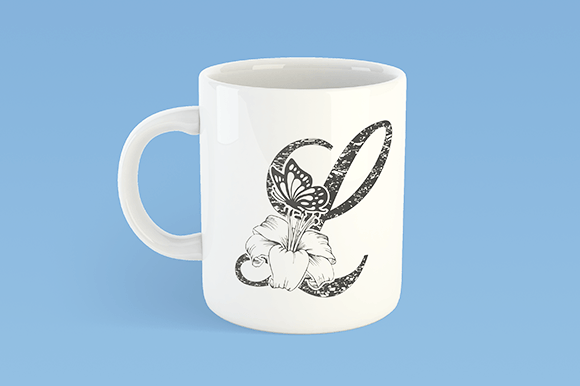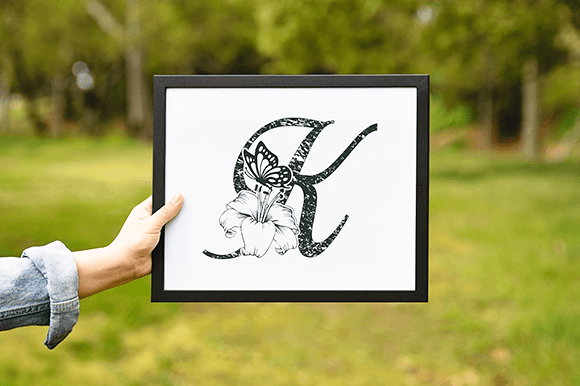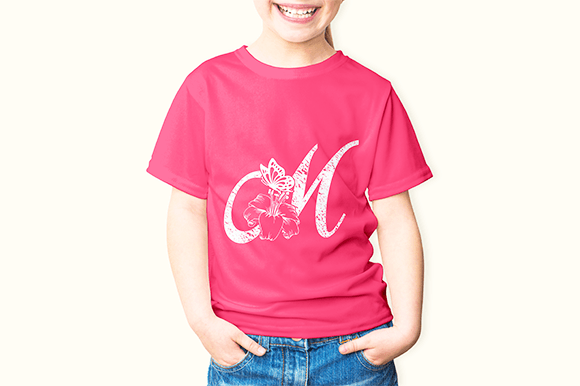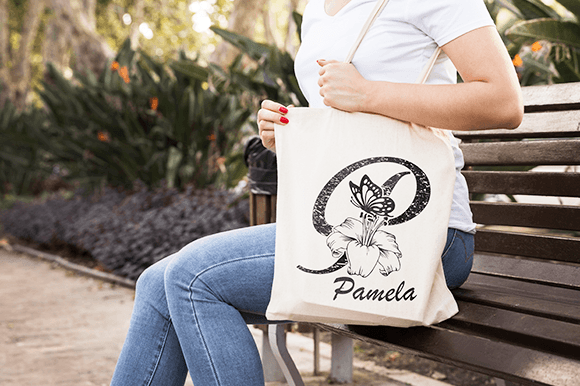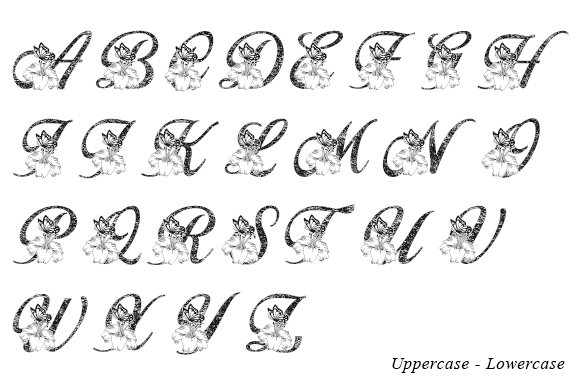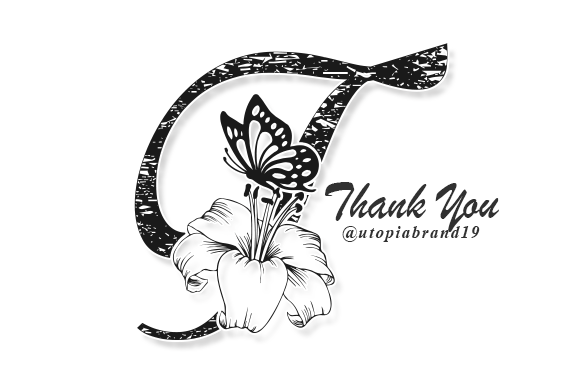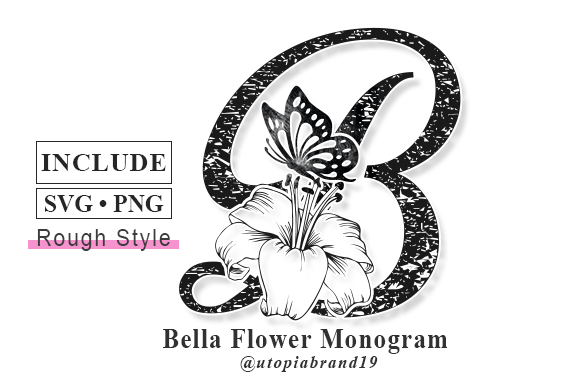
Bella Flower Monogram Font: Elevate Your Designs with Elegance
Are you a designer or crafter looking for a unique and captivating font to take your creative projects to the next level? Look no further than the Bella Flower Monogram Font, a stunning decorative font that is sure to leave a lasting impression. With its intricate details and ornate style, this font is perfect for those who want to add a touch of elegance and sophistication to their designs.
What is Bella Flower Monogram Font?
Bella Flower Monogram Font is a ravishing decorative font that features incredibly detailed ornaments, making it a standout in the world of typography. This beautiful font is designed to help you create spectacular designs that are sure to turn heads. Whether you’re working on a logo, branding project, or simply want to add a personal touch to your craft projects, Bella Flower Monogram Font is the perfect choice.
Unique Style and Features
So, what sets Bella Flower Monogram Font apart from other fonts? Here are just a few of its unique features:
- Incredibly detailed ornaments: Each letter in the Bella Flower Monogram Font is adorned with intricate details, making it a true showstopper.
- Ornate style: This font features an ornate style that is perfect for adding a touch of elegance and sophistication to your designs.
- Unique monogram designs: The Bella Flower Monogram Font includes a range of unique monogram designs that are perfect for creating custom logos, branding projects, and more.
- Easy to use: Despite its intricate details, Bella Flower Monogram Font is easy to use and can be incorporated into a variety of design projects.
Bella Flower Monogram Font is perfect for designers and crafters who want to take their projects to the next level. Here are just a few ways you can use this beautiful font:
- Logo design: Use Bella Flower Monogram Font to create stunning logos that are sure to make a lasting impression.
- Branding projects: Add a touch of elegance and sophistication to your branding projects with this beautiful font.
- Craft projects: Whether you’re working on a scrapbooking project, card making, or other craft project, Bella Flower Monogram Font is the perfect choice.
- Digital design: This font can be used in a variety of digital design projects, including social media graphics, blog posts, and more.
Tips for Using Bella Flower Monogram Font
Here are a few tips for getting the most out of Bella Flower Monogram Font:
- Use it sparingly: Due to its ornate style, it’s best to use Bella Flower Monogram Font sparingly to avoid overwhelming your design.
- Pair it with a simple font: Pair Bella Flower Monogram Font with a simple font to create a beautiful contrast.
- Experiment with colors: Don’t be afraid to experiment with different colors to find the perfect combination for your design.
In conclusion, Bella Flower Monogram Font is a stunning decorative font that is sure to elevate your designs and take them to the next level. With its intricate details, ornate style, and unique monogram designs, this font is perfect for designers and crafters who want to add a touch of elegance and sophistication to their projects. So why wait? Fall in love with Bella Flower Monogram Font and start creating spectacular designs today!
- Ravishing decorative font
- Incredibly detailed ornaments
- Ornate style
- Unique monogram designs
- Easy to use
Recommended for:
- Logo design
- Branding projects
- Craft projects
- Digital design